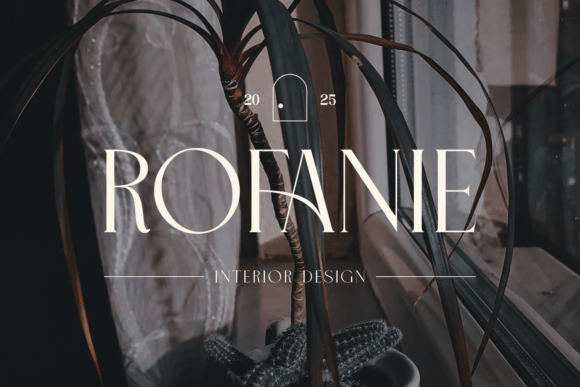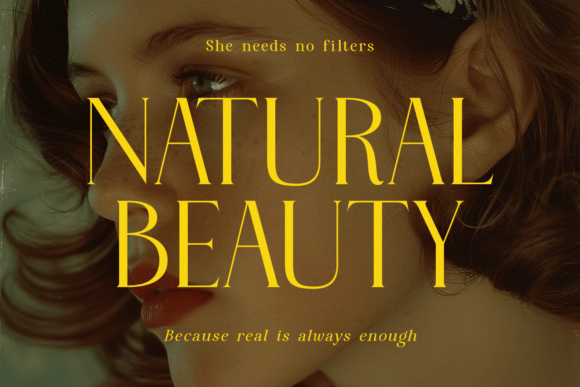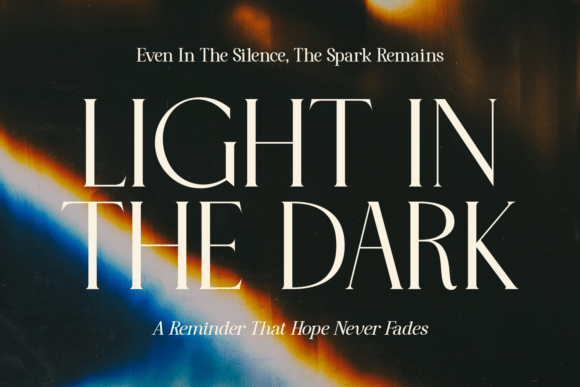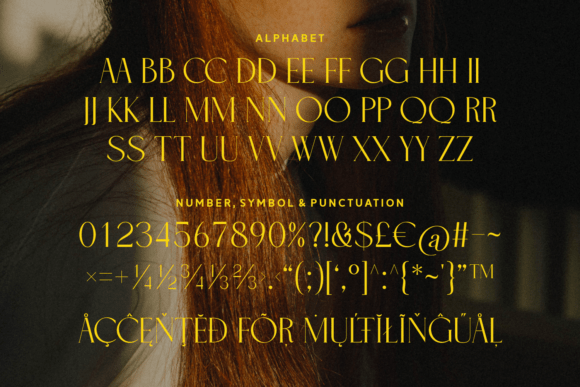
Introducing Farose Font: Elevate Your Designs with Luxury and Elegance
Are you looking for a font that exudes high-fashion energy and sophistication? Look no further than Farose, a stunning ligature serif font designed to impress. With its elegant strokes and luxurious feel, Farose is the perfect choice for designers and crafters seeking to elevate their branding, editorial layouts, logos, and packaging designs.
What is Farose Font?
Farose is a stylish ligature serif font that embodies the essence of high-end fashion. Its unique design features flowing connections between letters, creating a sense of fluidity and movement. This distinctive characteristic makes Farose perfect for designs that require a touch of sophistication and glamour.
Key Features of Farose Font
- Ligature Serif Design: Farose boasts a beautiful ligature serif design, complete with elegant connections between letters.
- High-Fashion Energy: The font’s sleek and sophisticated aesthetic makes it perfect for high-end fashion brands and designs.
- Graceful Strokes: Farose features smooth, flowing strokes that add to its luxurious feel.
- Versatile: This font is ideal for a wide range of design applications, including branding, editorial layouts, logos, and packaging.
Use Cases for Farose Font
Farose is an incredibly versatile font that can be used in various design projects. Here are some of the most popular use cases:
- Luxurious Branding: Create a lasting impression with Farose, perfect for high-end fashion brands, luxury hotels, and upscale restaurants.
- Editorial Layouts: Add a touch of elegance to your editorial designs, such as magazines, newspapers, and blogs.
- Elegant Logos: Create a sophisticated logo for your business or brand with Farose.
- High-End Packaging: Elevate your packaging designs with Farose, perfect for luxury products and high-end retail.
Why Choose Farose Font?
- Unique Design: Farose’s ligature serif design sets it apart from other fonts, ensuring your designs stand out.
- High-Quality: This font is designed with high-quality craftsmanship, ensuring crisp and clear letterforms.
- Easy to Read: Despite its elegant design, Farose remains easy to read, making it perfect for body text and headlines.
- Use Ligatures: Take advantage of Farose’s ligature feature to create flowing, connected text.